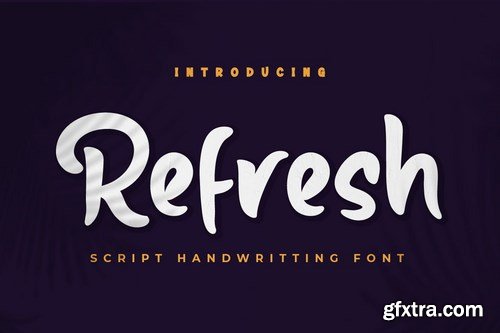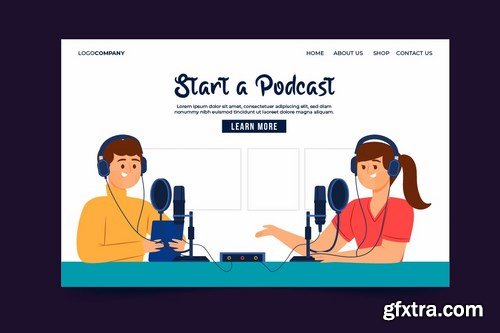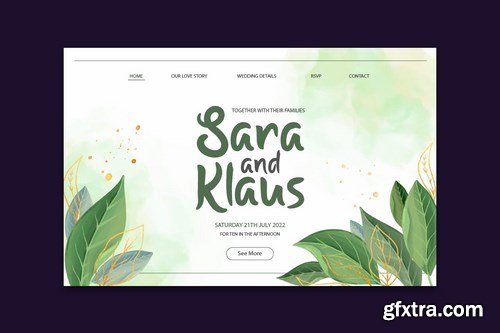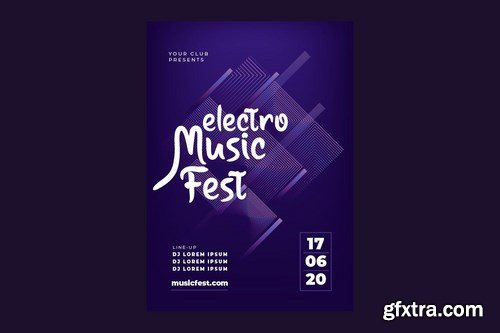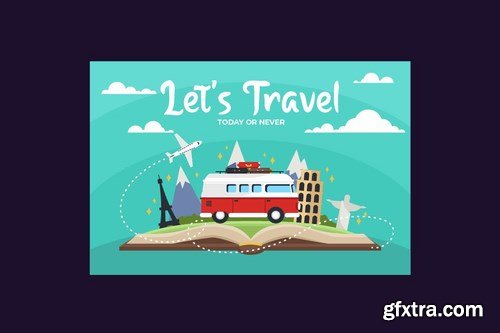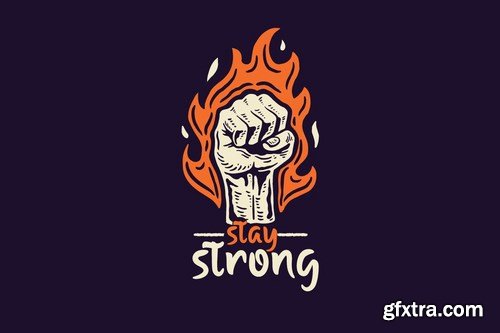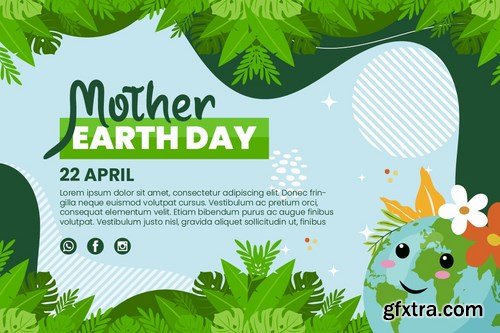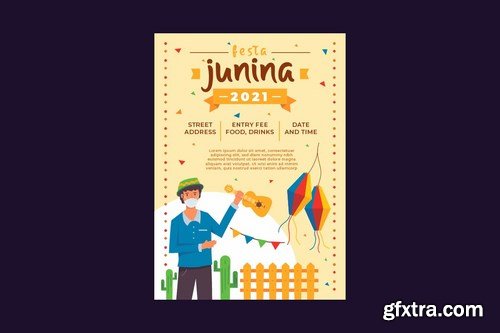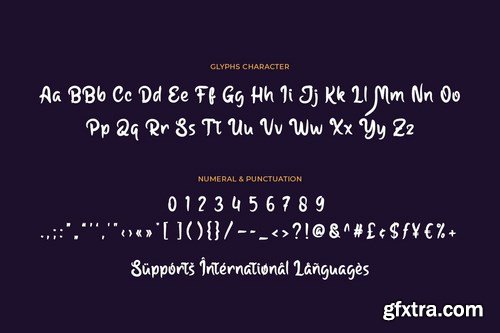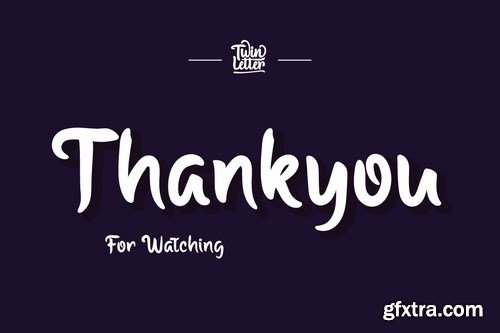
Introducing our font named Refresh This font is a handwritten typeface with a calm, abstract, and lovely hand touch that may be used in a range of applications.